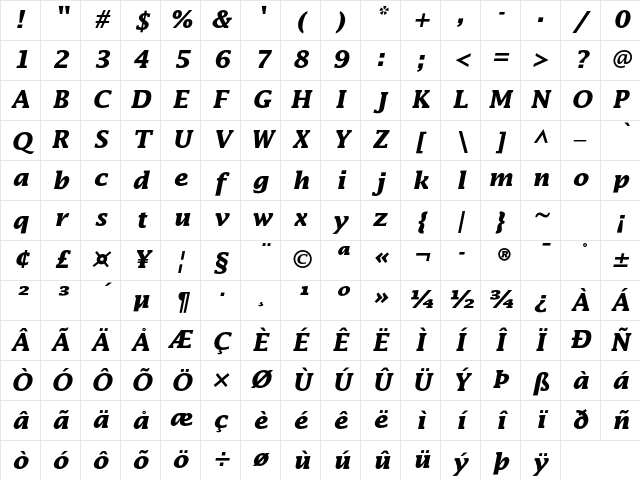
Lucida Std Bold Italic
Designer: Kris Holmes, Charles Bigelow
Design Context for Lucida Std
Lucida Std is a composed and adaptable typeface that performs quietly and consistently across a wide range of design contexts. The slanted form adds forward momentum and visual energy. Its bold stroke weight gives it real presence on the page.
Pro Tip: Use Lucida Std for emphasis, pull quotes, and subheadings where its slanted energy can add rhythm to the layout.